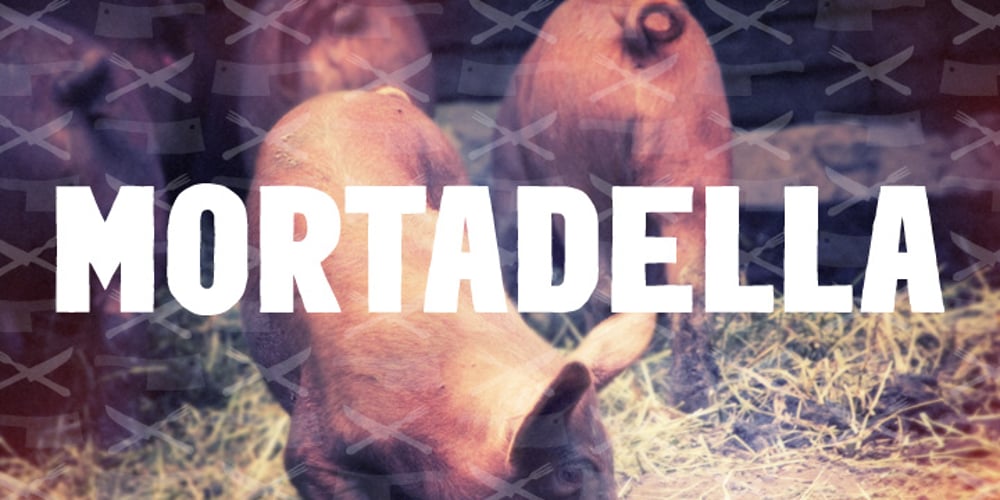
Mortadella Font Family was designed by published by Josh Grzybowski. Mortadella contains 1 styles and family package options. Mortadella is a hand drawn, burly looking OpenType sans-serif font with just the right rough edges and simple stylistic alternatives . Designed as a display font Mortadella works great for identity design and publication headers and sub-headers.